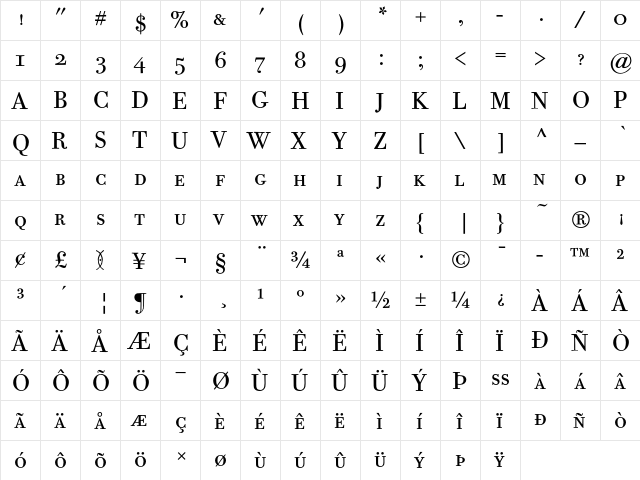
Bodoni Twelve ITC Book SC
Design Context for Bodoni Twelve ITC Typeface
Bodoni Twelve ITC offers clean, dependable letterforms without strong stylistic allegiance, making it a practical choice for designers who need flexibility.
Pro Tip: Pair Bodoni Twelve ITC with a font of contrasting weight or personality to build a more expressive typographic hierarchy.